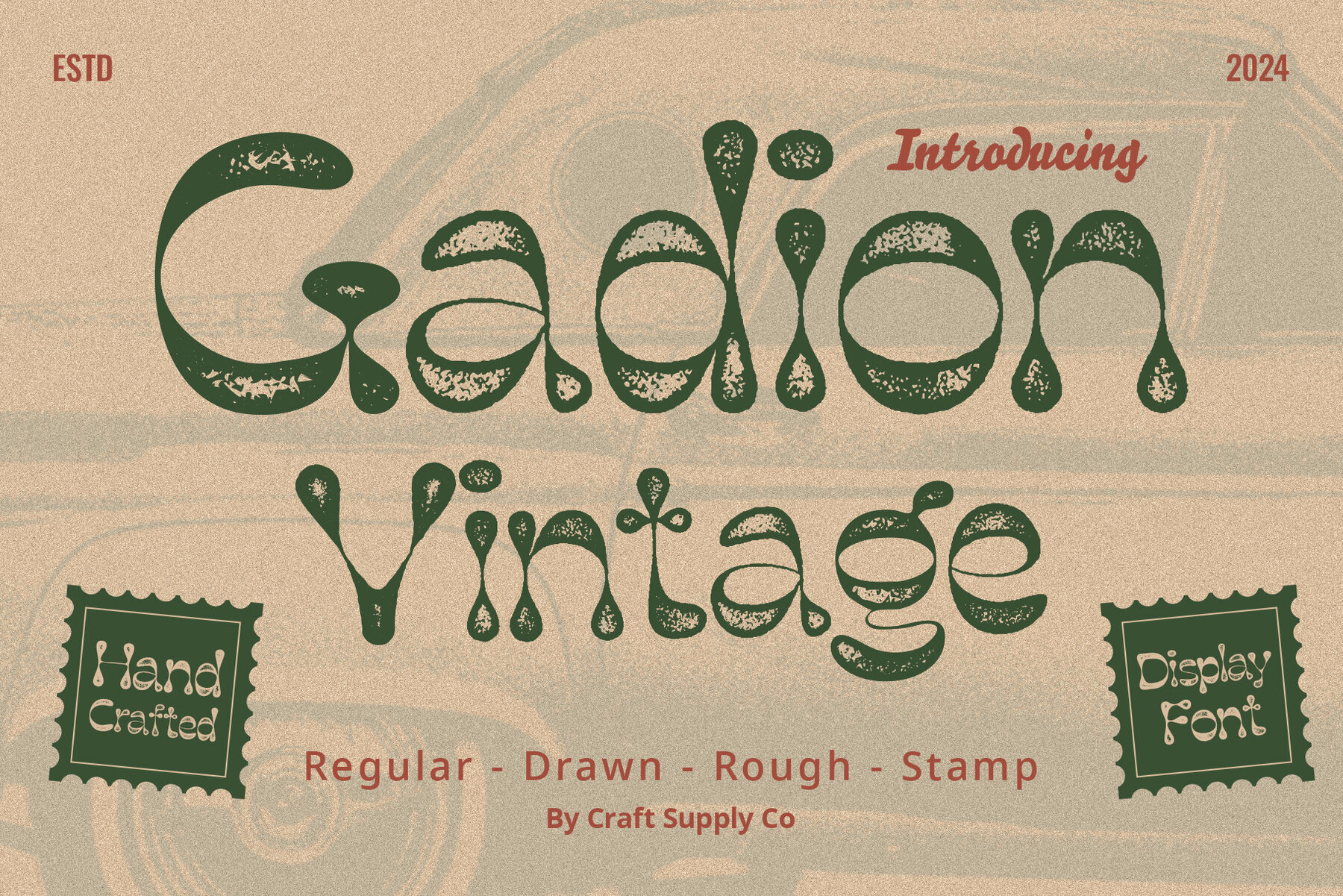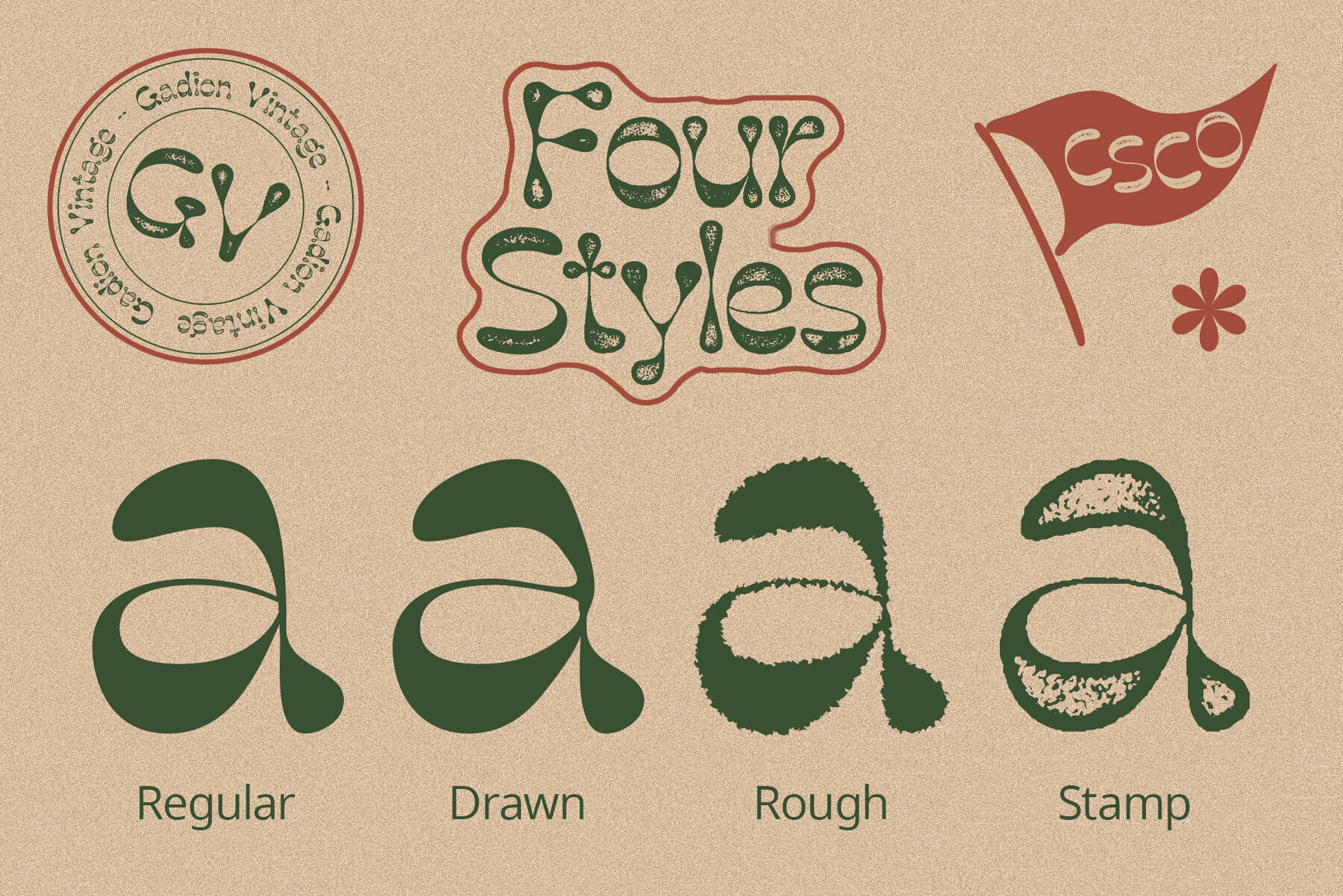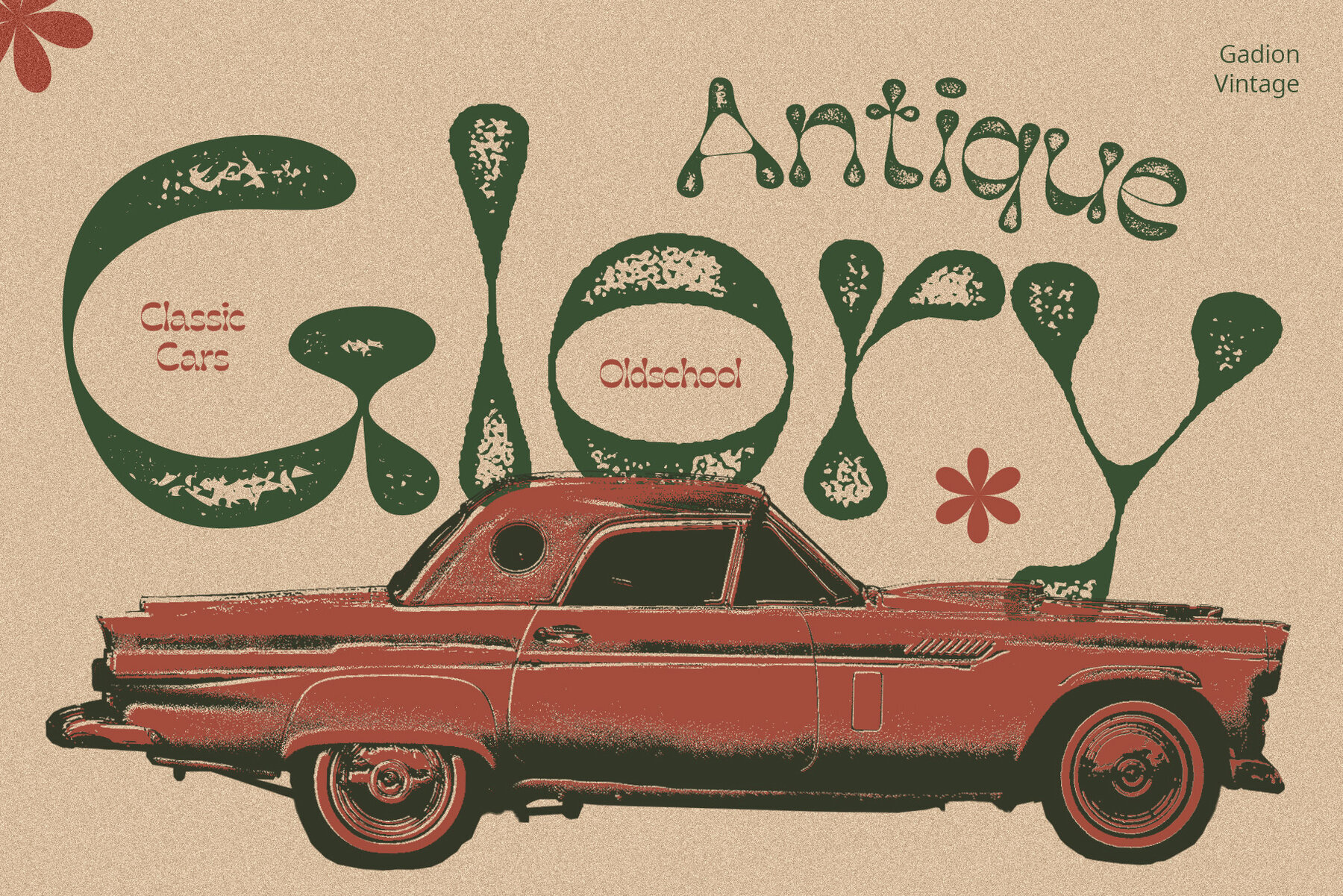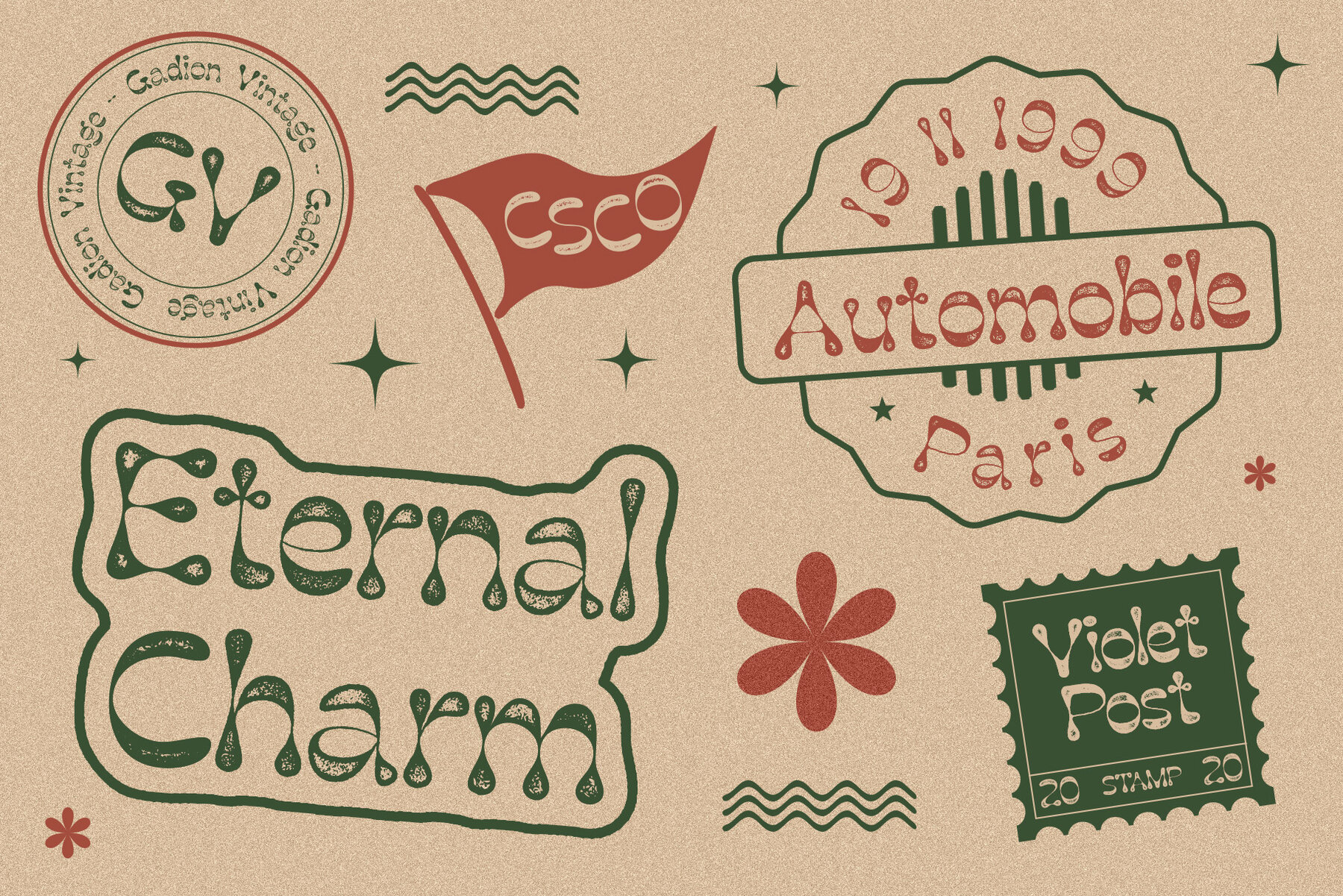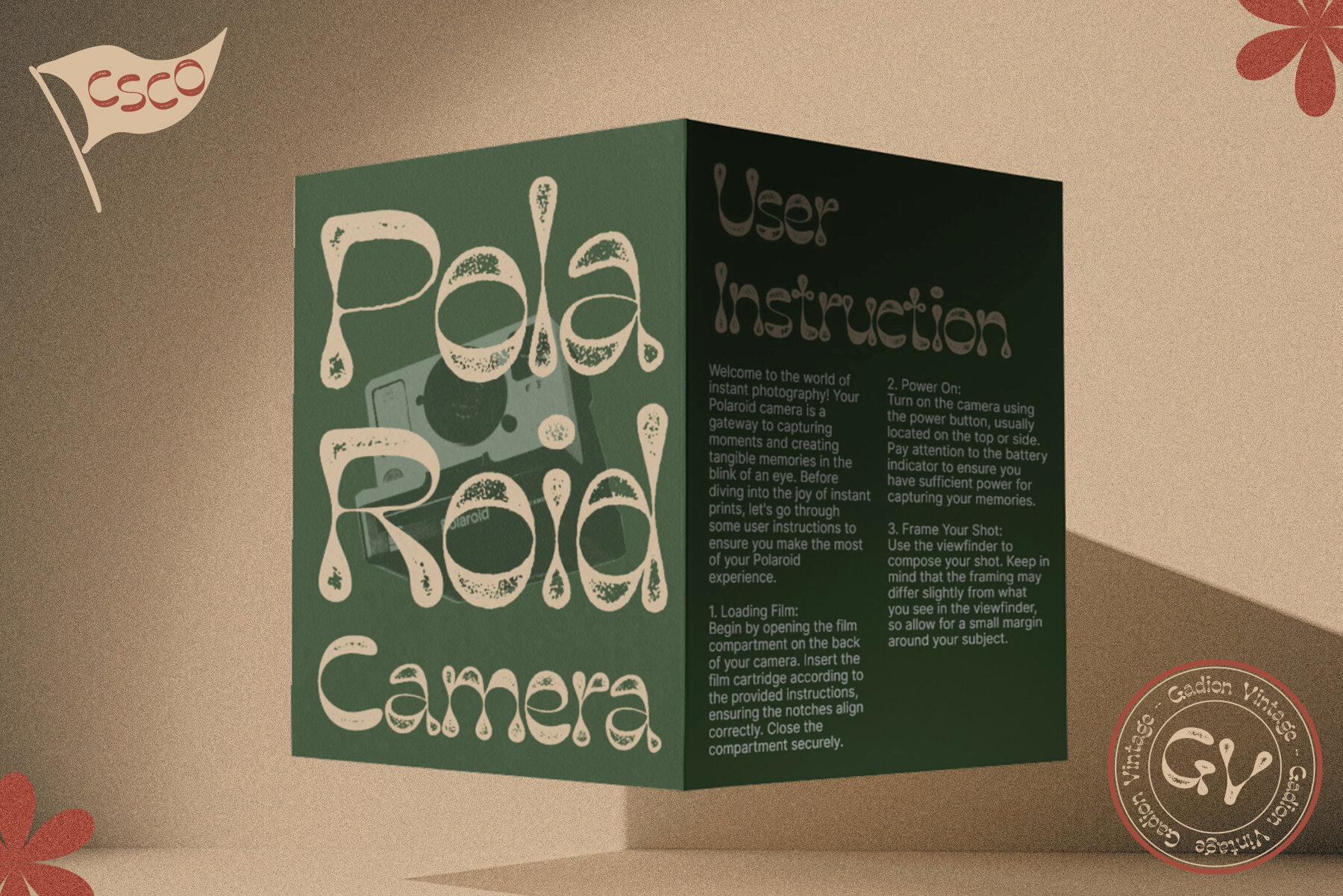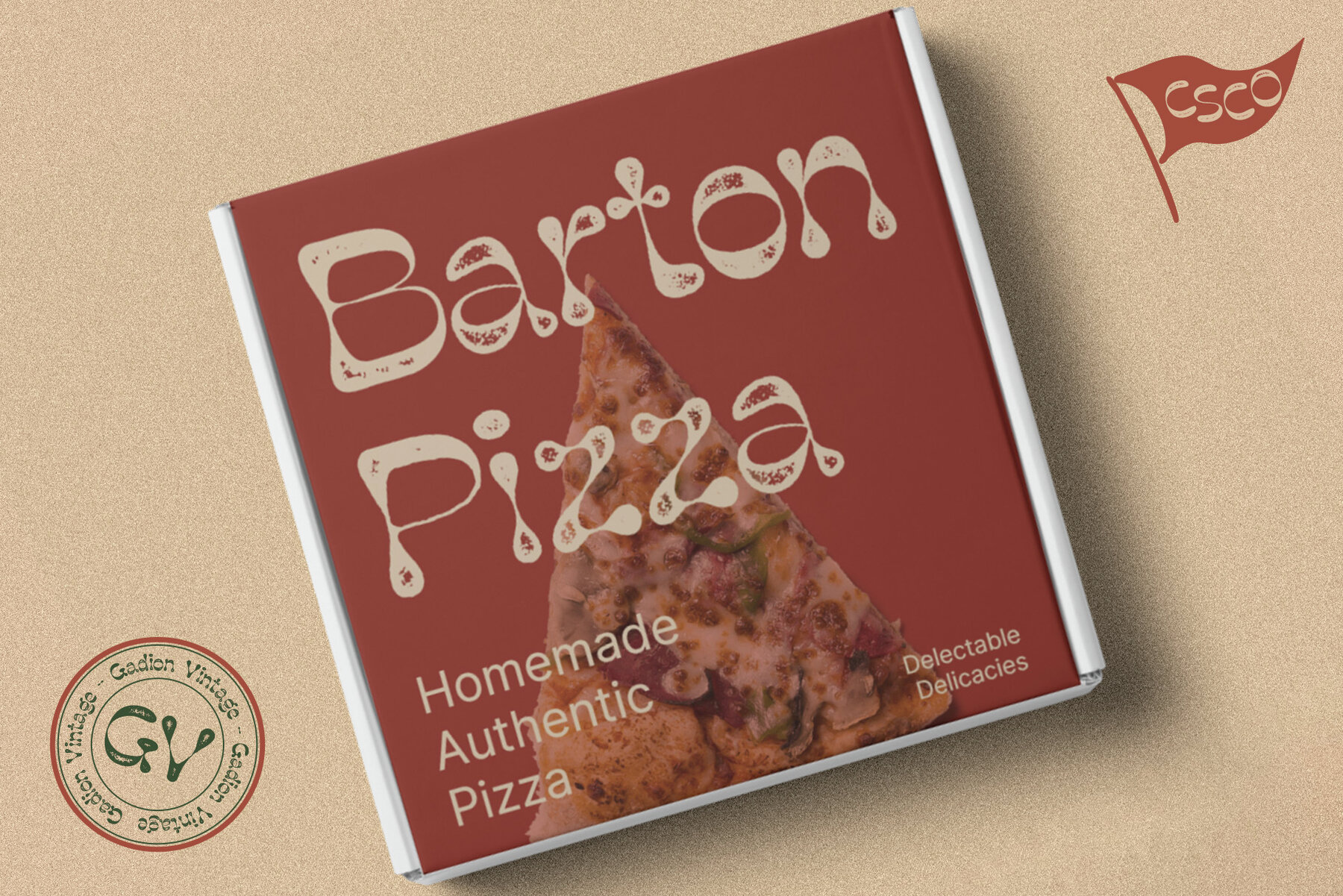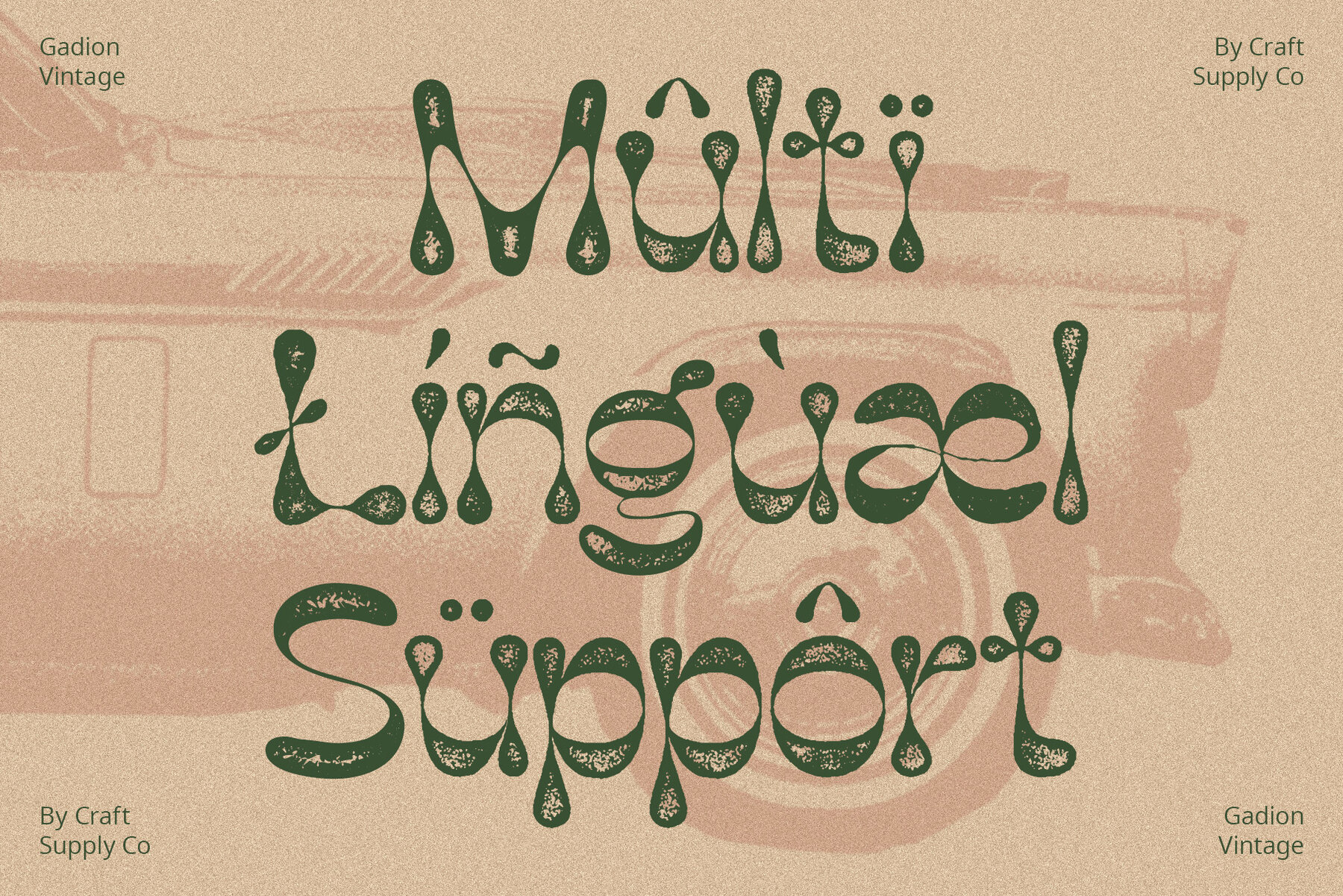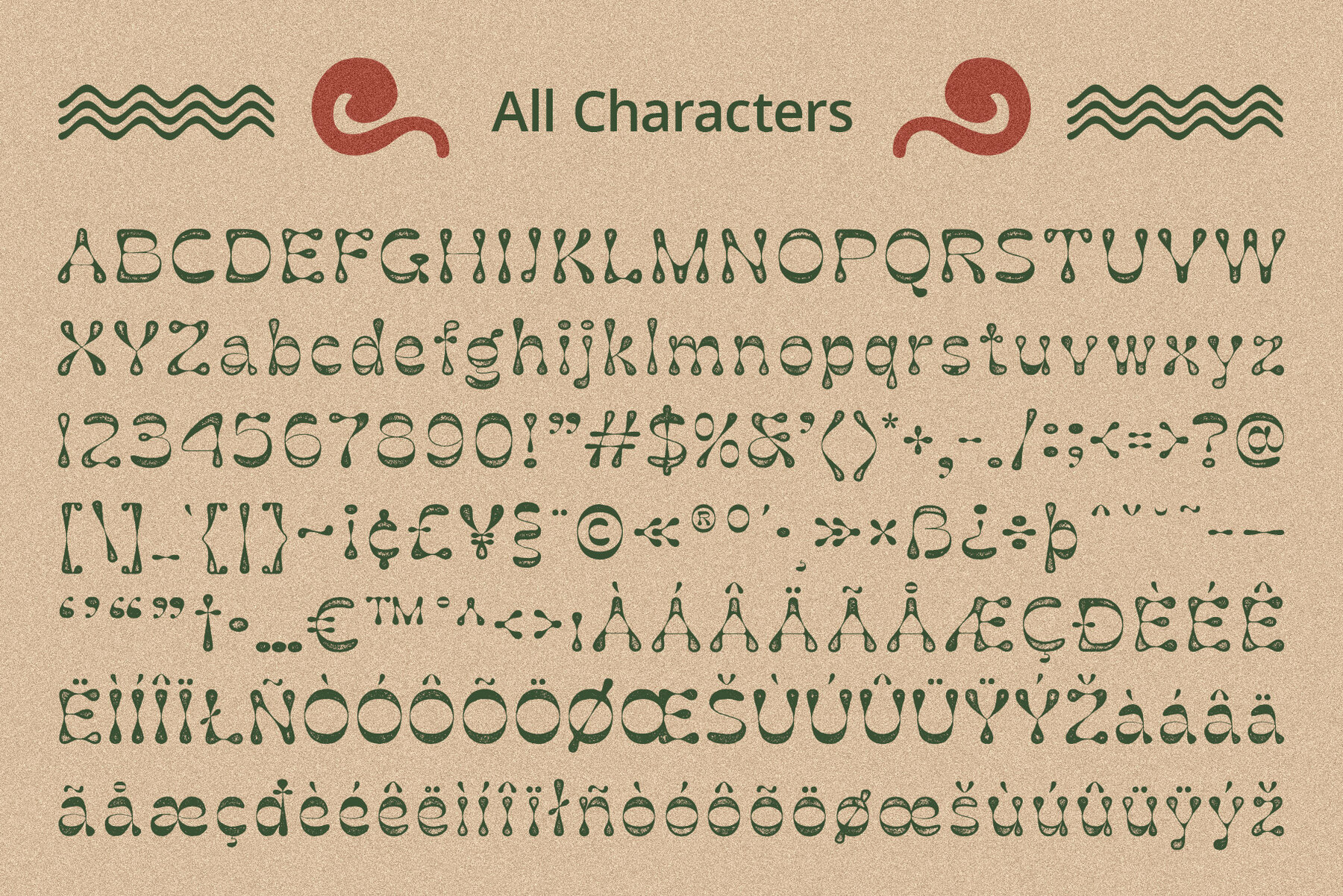
Gadion Vintage Font
Gadion Vintage, a captivating display font, transports you back in time with its charming bubble-shaped letters, reminiscent of retro aesthetics. Each character carries the distinctive stamp and rough texture, adding an authentic vintage touch. Gadion Vintage doesn’t just mimic the past; it embraces its imperfections for an effortlessly elegant look. The font’s unique blend of bubble design, stamp effect, and rough detailing creates an eye-catching vintage appeal. It’s not just a font; it’s a statement that demands attention. Gadion Vintage isn’t confined to nostalgia; it’s a versatile font with retro allure. From posters to packaging, its timeless charm elevates any design, ensuring a lasting impact. Gadion Vintage isn’t merely a font; it’s a journey through time. With its bubble design, stamped elegance, and vintage appeal, this font seamlessly combines the old and the new, ensuring your designs stand out with timeless charm. No specialized software is needed to utilize this typeface. For any inquiries or assistance, please don’t hesitate to get in touch. We appreciate your support in making your creative projects shine! Best regards, Craft Supply Co.Gadion Vintage: Timeless Charm in Every Bubble
Nostalgic Bubble Design
Eye-Catching Vintage Appeal
Versatile Retro Allure